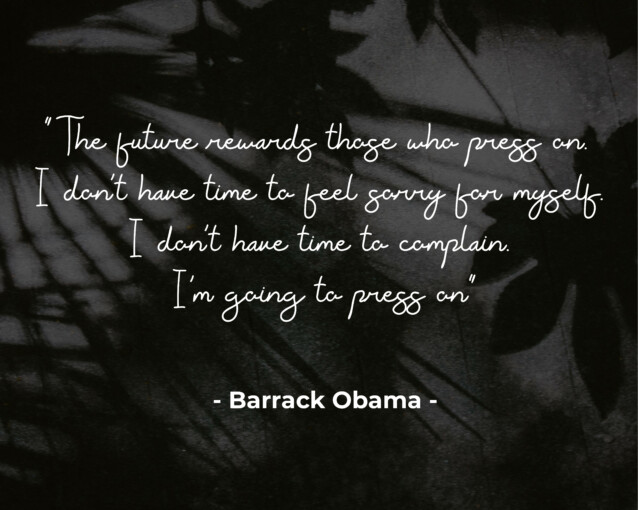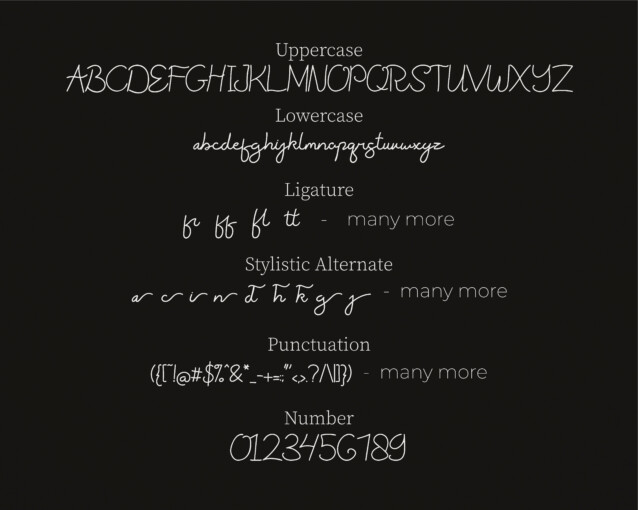
Renatta Font
Renatta Font – Our natural-inspired font captures the raw essence of handwriting, embracing every nuance and idiosyncrasy.
This Font is suitable for any branding your design needs, wedding invitation, romantic project, studio brand, logo, invitations, social media posts, clothing, poster, cafe/resto sign and any design what you needs.
2. Uppercase, Lowercase, Punctutation and Number
3. Ligature Set
4. Languages Support : West Europe
5. Stylistic Alternate : ss01, ss02 and ss03
6. Special Ending Swashes